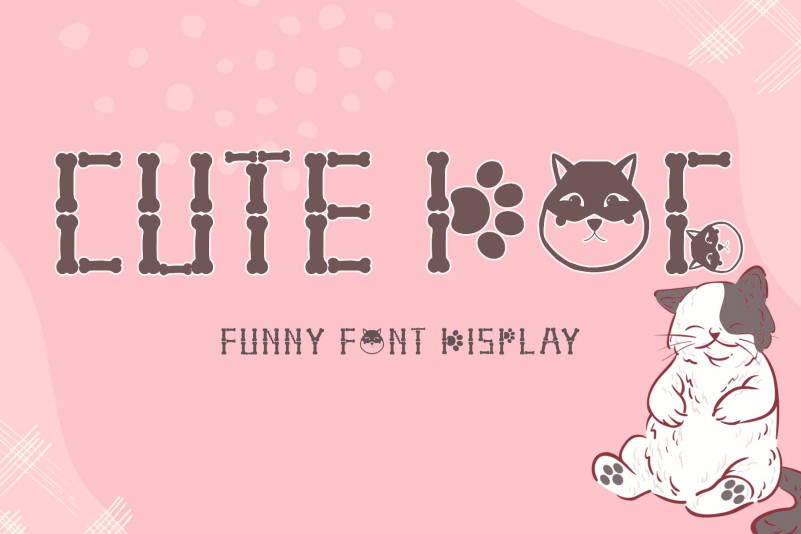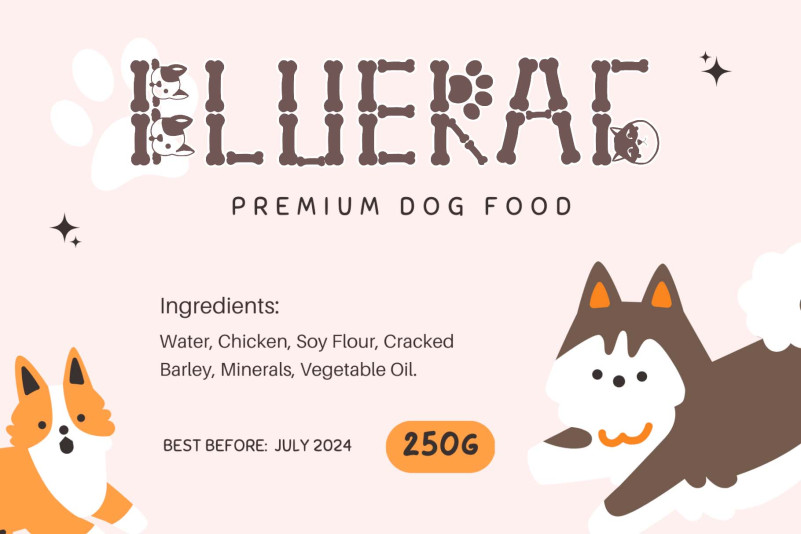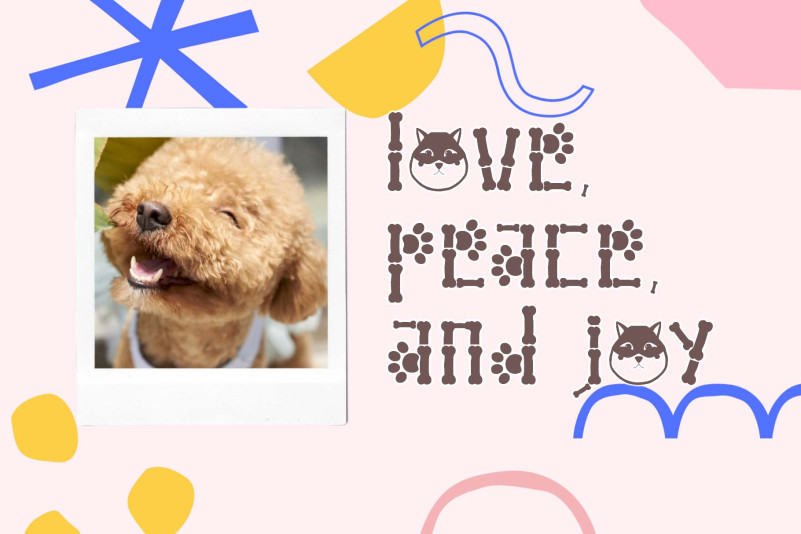
Cute Dog Font
Cute Dog Font, this unique display font is a must-have for any dog lover! Each letter is crafted with decorative bones, dog heads, and paw prints to create a fun and playful design. Whether you’re designing for a pet store or just want to add some personality to your project, Cute Dog is sure to impress.